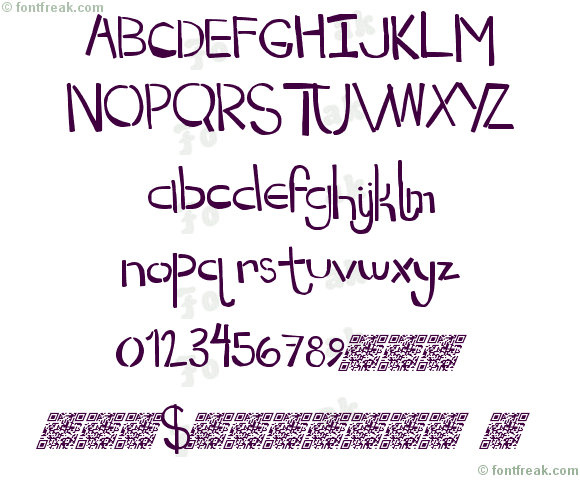
DropKickMB
DropKickMB by XEROGRAPHER FONTS is a striking display font that effortlessly combines a playful aesthetic with bold character. This font stands out due to its unique handwritten style, characterized by its irregular stroke weights and whimsical flair. The letters feature charming, slightly exaggerated loops and curves, giving it a lively, energetic appearance that is sure to catch the eye. The spacing is well-balanced, allowing for clarity and readability even in larger sizes, while the overall design gives it a distinct personality that is both modern and approachable.
The versatility of DropKickMB makes it an excellent choice for various creative projects. It is particularly well-suited for wedding invitations, where its charming style can add a personal touch. Additionally, it shines in movie posters, capturing attention with its dynamic flair and unique character. Restaurant menus can also benefit from its playful tone, enticing diners with a fun and inviting presentation. Moreover, content creators can use this font in social media graphics to enhance engagement, making their posts stand out in a crowded feed.
In conclusion, DropKickMB is a remarkable font that combines personality with versatility. Its engaging design and playful nature make it an ideal choice for a wide range of applications. For those seeking a distinct typeface that stands out from the crowd, the DropKickMB font free download is a must-have addition to any designer's toolkit.